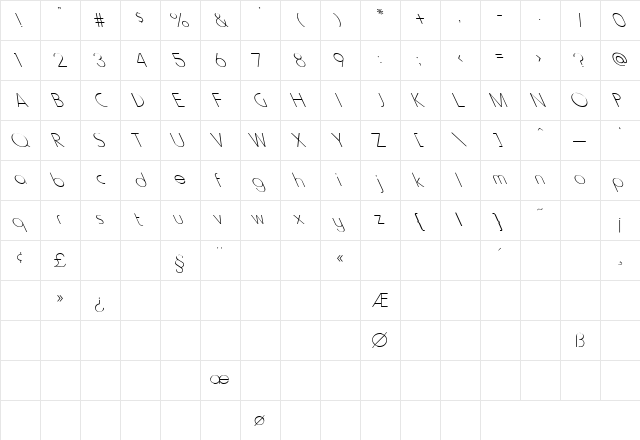
Howard-Light-Extreme Leftified Regular
Complete Howard-Light-Extreme Leftified Regular glyph index. Displaying only characters natively supported by Howard-Light-Extreme Leftified Regular font.
Design Context for Howard-Light-Extreme Leftified
Howard-Light-Extreme Leftified is a composed and adaptable typeface that performs quietly and consistently across a wide range of design contexts. Its slender proportions lend an understated elegance to any composition.